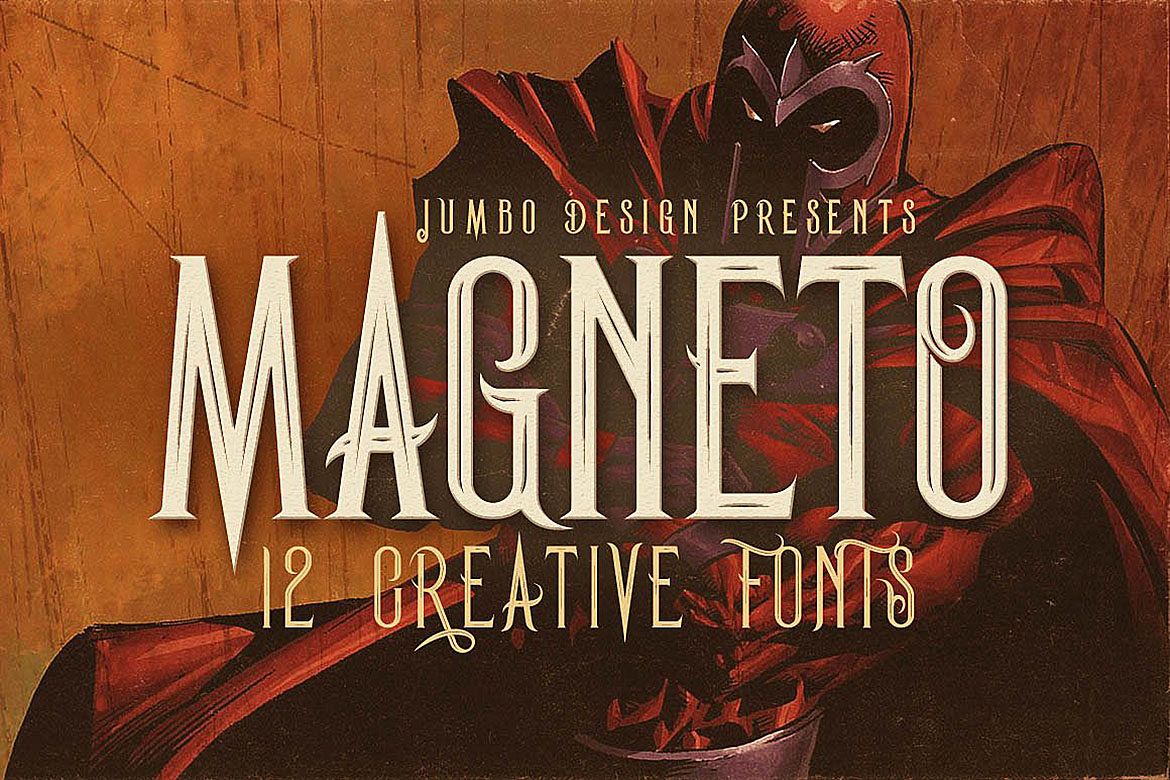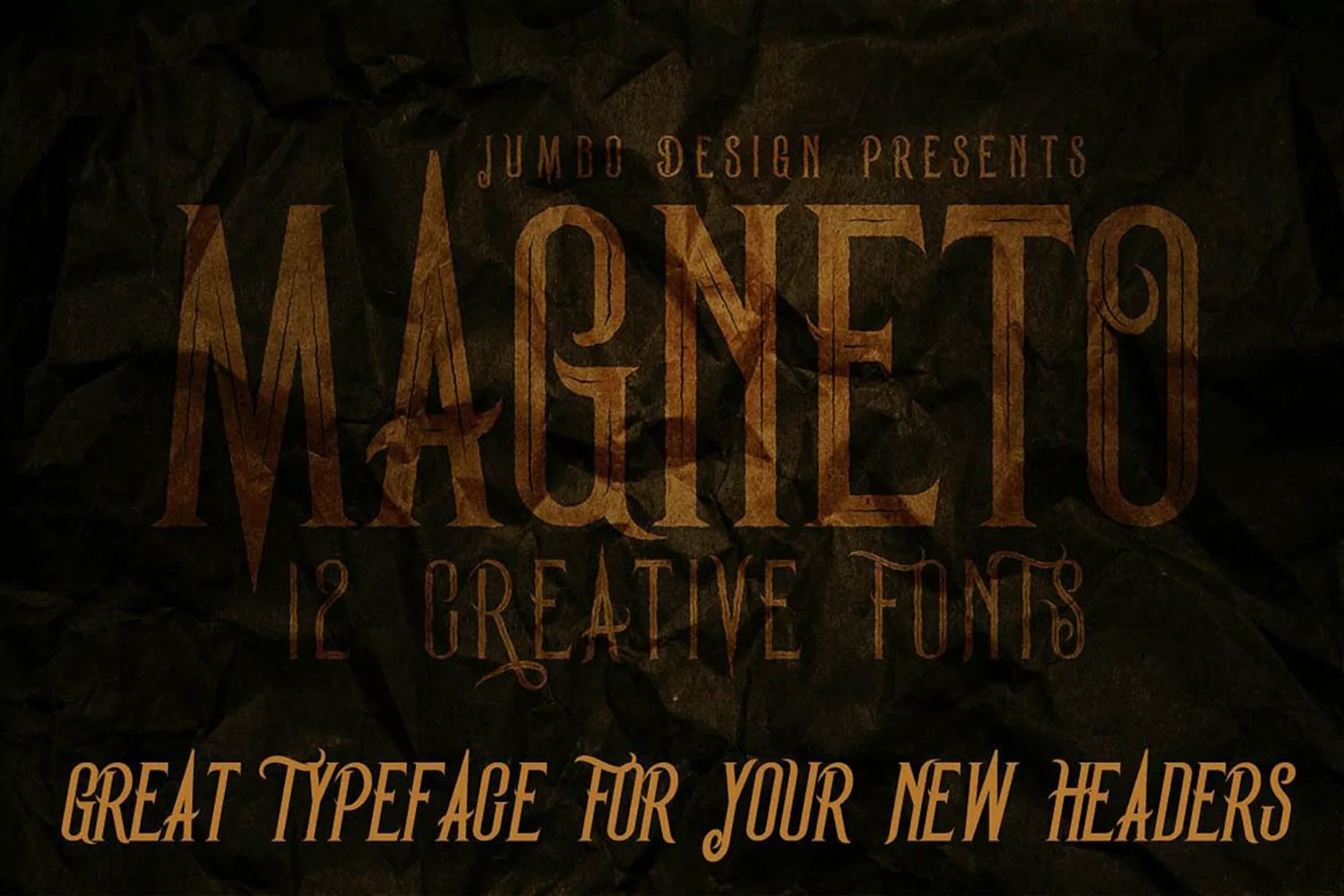
Magneto - Vintage Style Font
Unique and creative vintage style custom font with 12 styles: regular and grunge, inline and inline grunge, bold & outline bold grunge, bold inline & bold inline grunge, shadow, inline shadow, bold inline shadow.